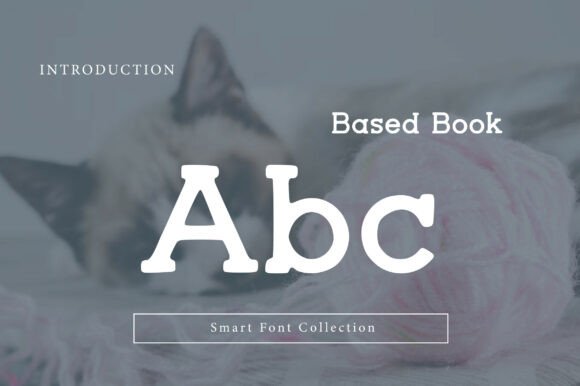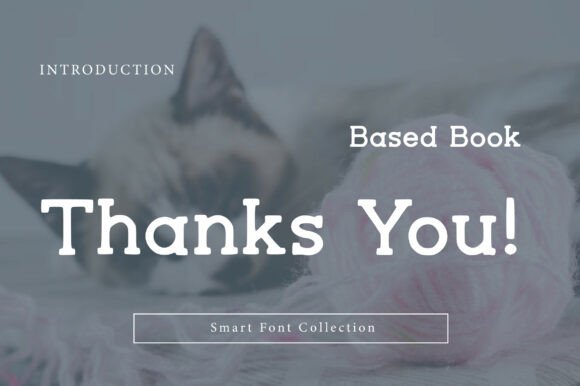
Unleashing the Charm of Based Book Font
Have you ever stumbled upon an old, worn-out book in a dusty corner of a vintage bookstore, and been captivated by the elegant typography that adorned its cover? For many designers, this moment is a spark of inspiration that sets their creative juices flowing. It’s a feeling that Based Book Font aims to evoke, with its bold, friendly serif display font that exudes a charming bookish personality.
Based Book Font is more than just a stylish typeface – it’s a versatile tool for designers looking to add a classic touch to their projects. With its readable, slightly playful letterforms, it’s perfect for book covers, editorial headlines, logos, branding, packaging, labels, posters, and vintage-inspired typography. Whether you’re working on a modern magazine or a retro-themed campaign, Based Book Font delivers a timeless feel with a modern, approachable twist.
- Unique Characteristics: Based Book Font features a unique blend of modern and traditional design elements, with a focus on clarity and readability. Its distinctive x-height and letterform shapes set it apart from other serif fonts.
- Kerning and Ligatures: Based Book Font includes advanced kerning and ligature tables, ensuring that text is typeset with precision and elegance, even in complex layouts and combinations.
- Font Weight and Style: Based Book Font is available in a range of weights, from Light to Bold, and includes italics and small caps for added flexibility and expressiveness.
Based Book Font Review
Overall, I think Based Book Font has some great qualities that make it a solid choice for book titles and body text. ✨ The font’s friendly and approachable feel is perfect for creating a welcoming atmosphere in your book design.
- Consistency: The font is well-designed and consistent in its letterforms and spacing, making it easy to read and navigate.
- Variety of weights: The font family offers a range of weights, from light to bold, which allows for flexibility in designing different elements of your book.
- Legibility: The font is highly legible, even at smaller sizes, making it suitable for long blocks of text.
However, there are some limitations to consider: ⚠️ The font may not be the best choice for headings that require a lot of contrast or for designs that need a more dramatic effect. Additionally, some users may find the font’s friendly feel too casual for more formal or academic content.
Overall, I would recommend Based Book Font for book design projects where a warm and approachable feel is desired. With its consistent design, variety of weights, and high legibility, it’s a solid choice for book titles and body text.
For best results, use “Based Book Font” in conjunction with a bold font for headings and a clean sans-serif font for body text.
Common use cases include book covers, academic papers, and literary magazines.
Playfair Display is a luxurious, high-end serif font perfect for creating a sense of sophistication and elegance. It’s ideal for use in high-end branding, luxury packaging, and special event invitations. Playfair Display is a more ornate and decorative font compared to Based Book Font, which is more straightforward and minimalistic.
Merriweather is a classic serif font that’s perfect for use in body text and long-form content. It’s highly legible and easy to read, making it ideal for use in books, academic papers, and other written content. Merriweather is a more traditional and timeless font compared to Based Book Font, which has a more modern feel.